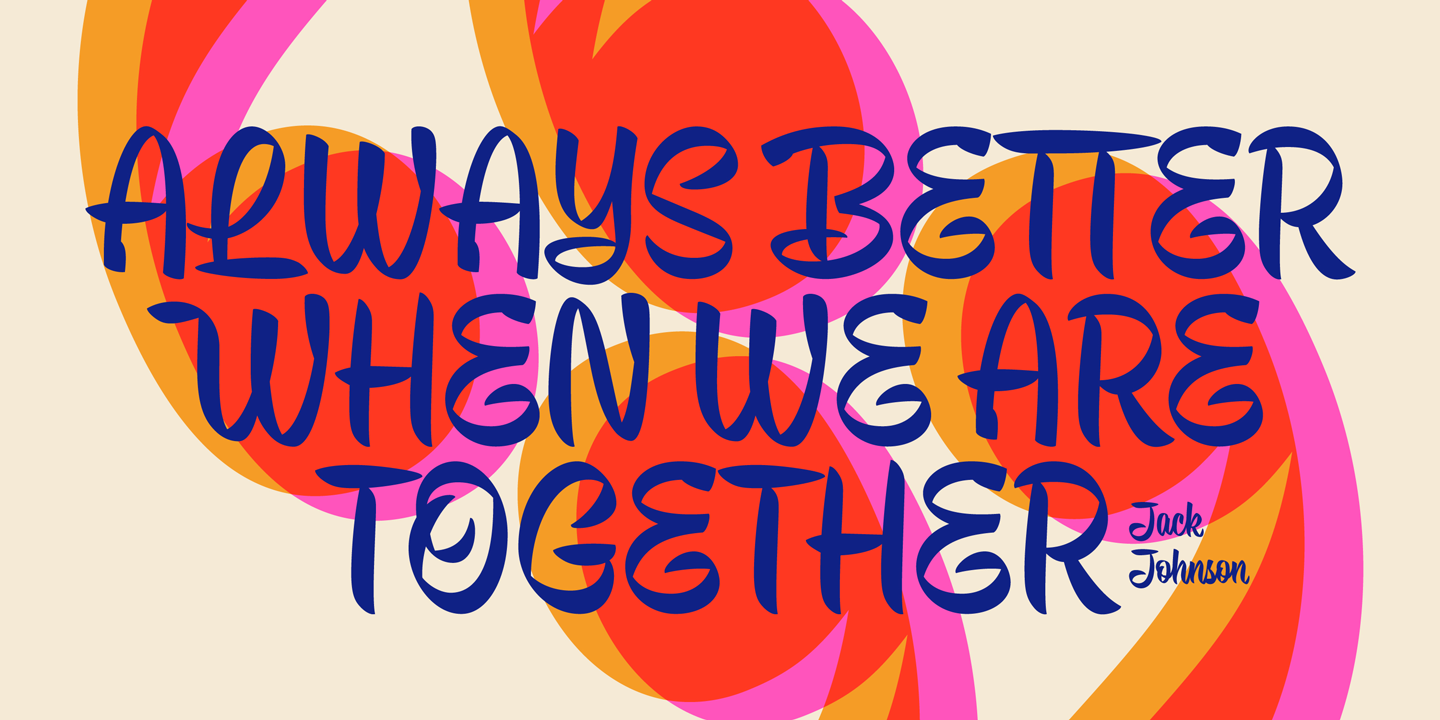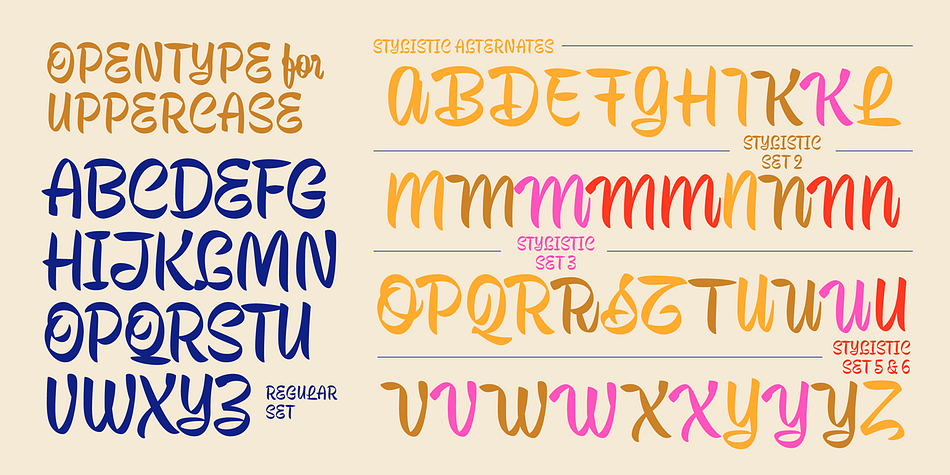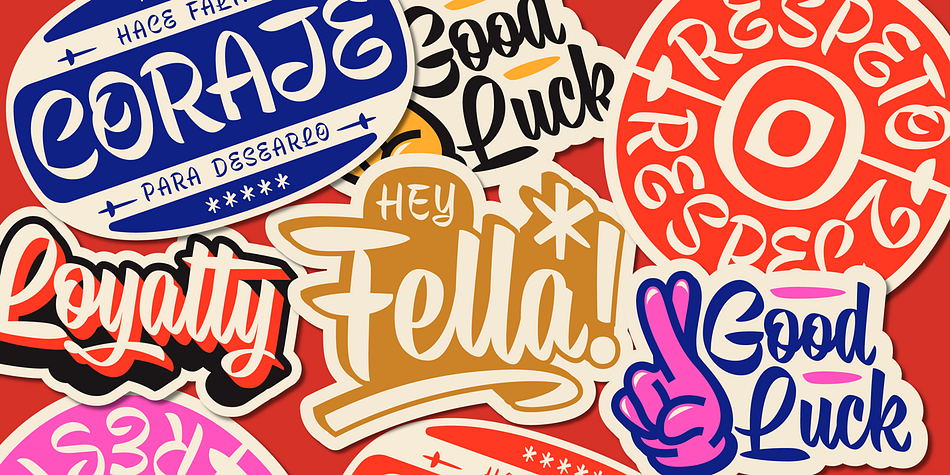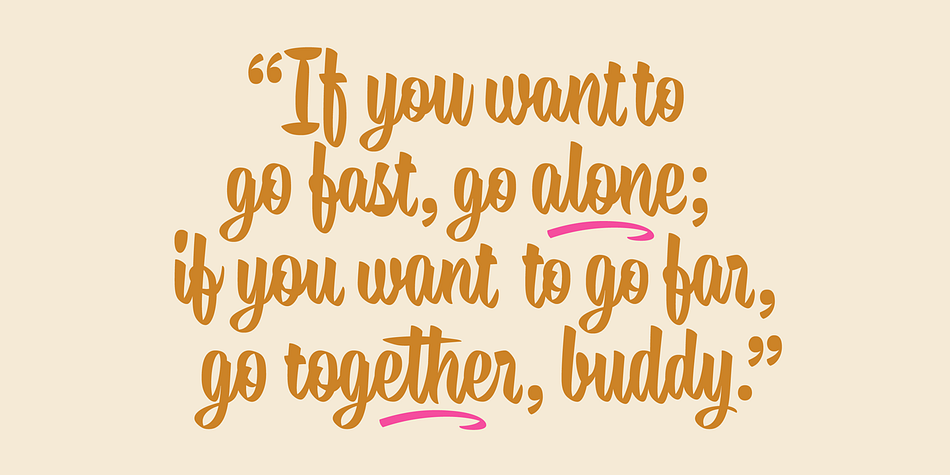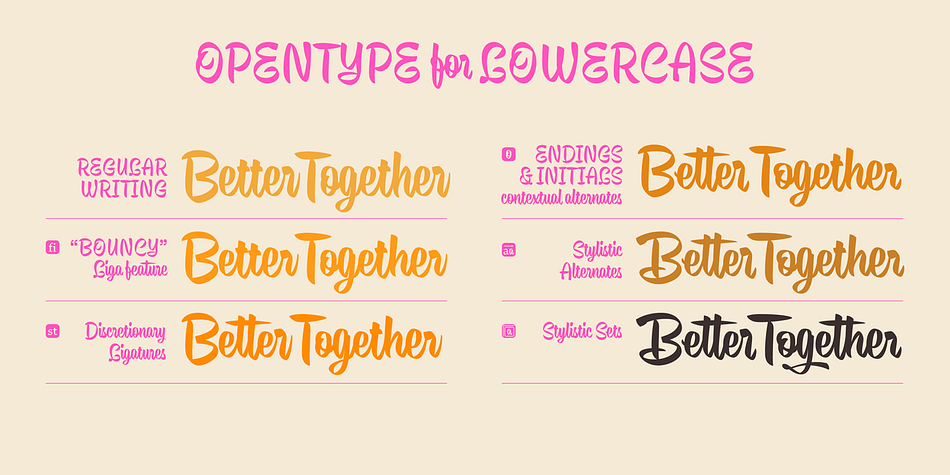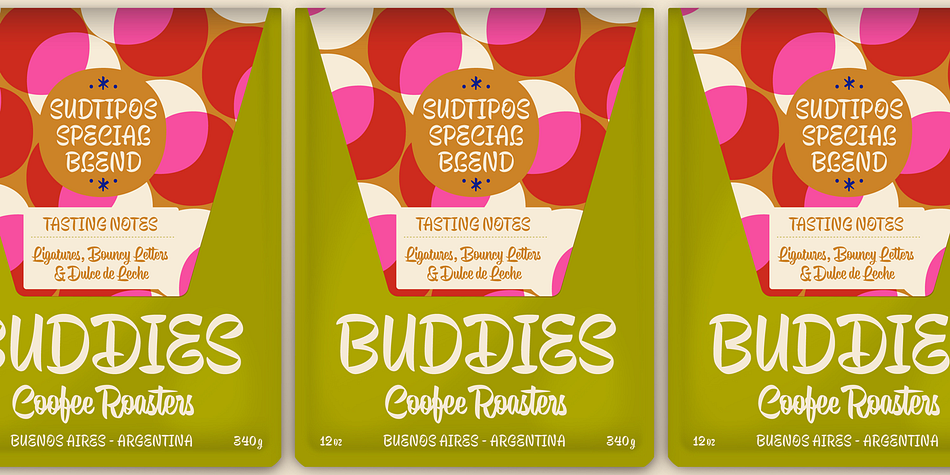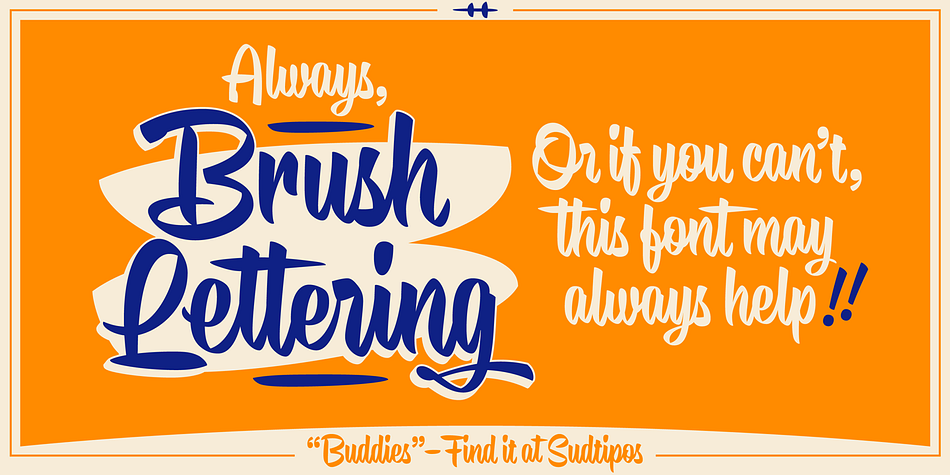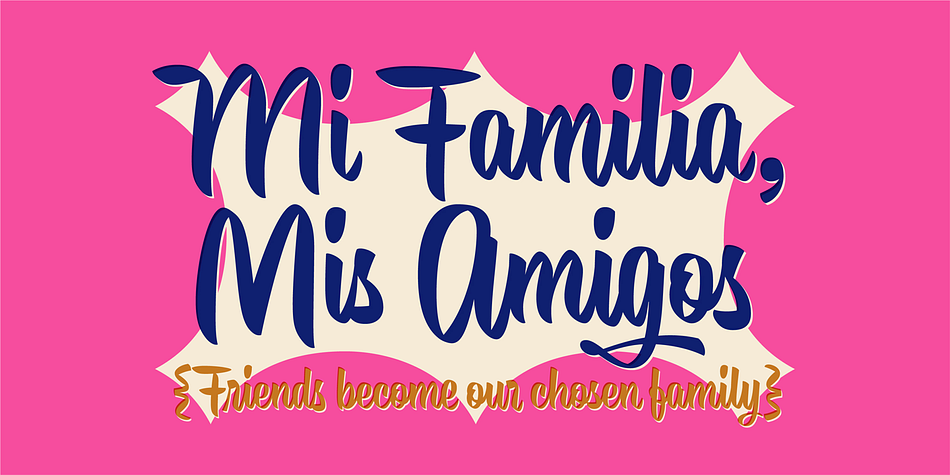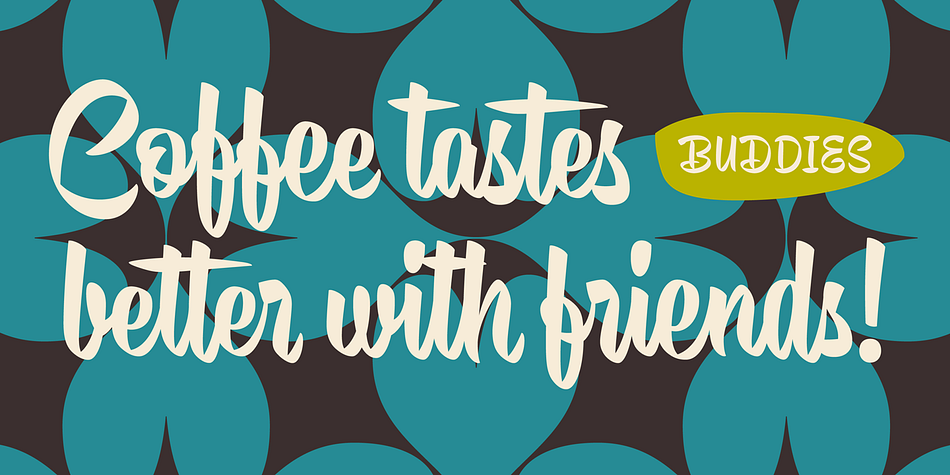
Designed by Guille Vizzari, Buddies is a brush script and retro font published by Sudtipos.
Buddies, designed by Guille Vizzari, is a script font that was initially born as a piece of lettering.
It is the result of an experiment between brush pen and pencil, and in this way, Buddies takes the imprint of the brush, the freshness of sign painting, and some (or a lot) of quirks by the author.
The font at times enjoys dancing in titles and short lines of text, pouring rhythm and movements through its lowercase various x-height sets.
Buddies also has a vast uppercase set with daring and atypical shapes that surprisingly function beautifully for composing short all-caps texts; messages are brought to life with awesome personality, ideal for packaging, fashion or even editorial.
Buddies is a friendly font, a humble invitation to the brush letters universe, but from an unpredictable point of view.